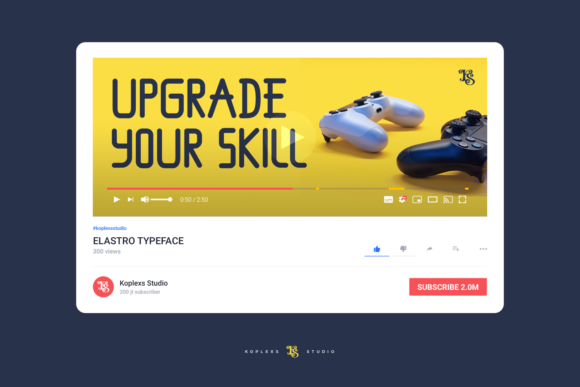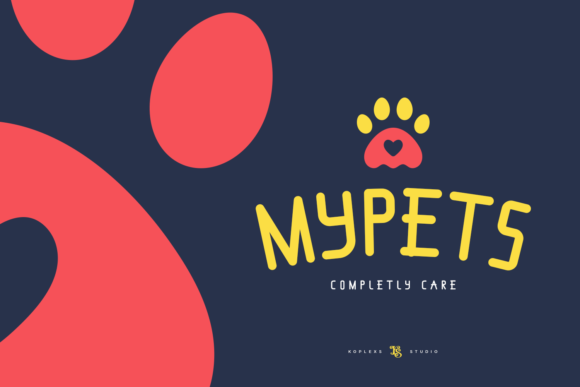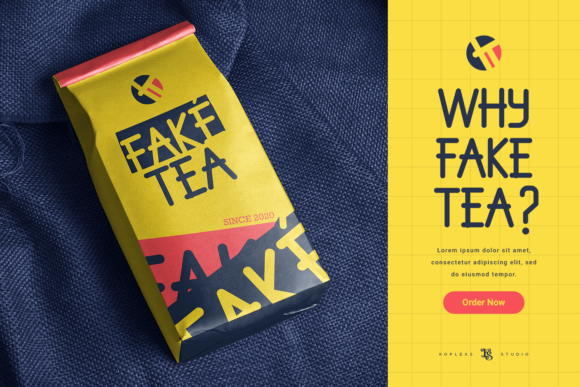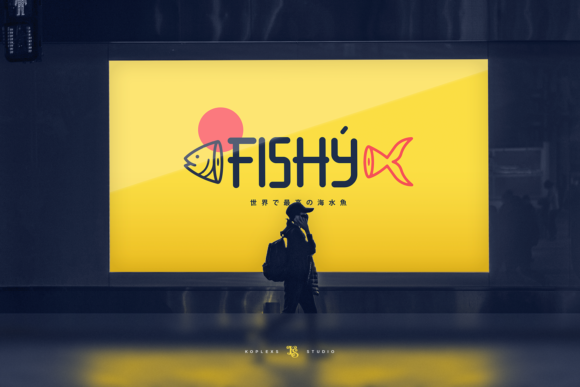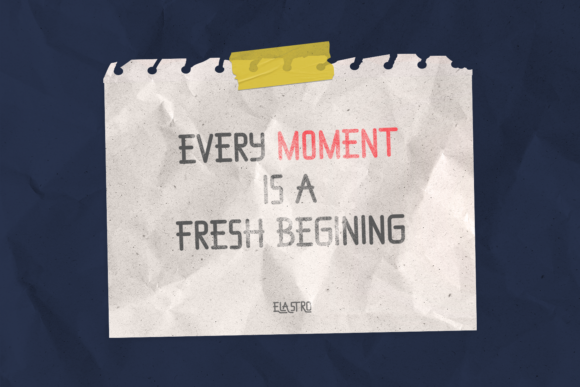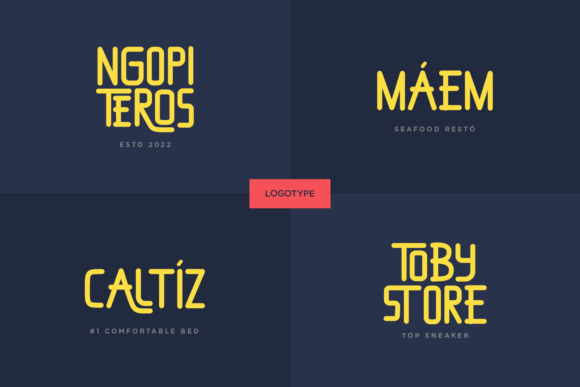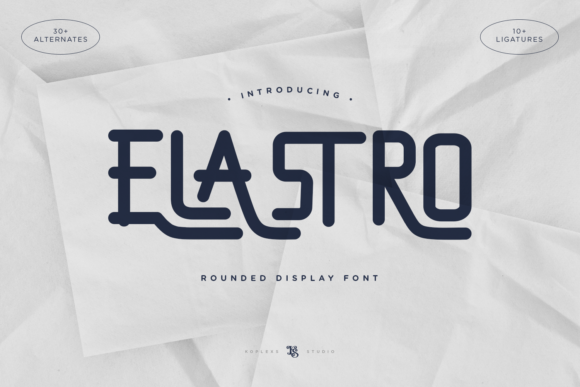
Introducing Elastro Font: The Ultimate Vintage Display Font for Designers and Crafters
Are you a designer, crafter, or DIY enthusiast looking for a font that adds a touch of vintage charm to your projects? Look no further than Elastro Font! This cool and stylish display font is perfect for a wide range of applications, from digital designing and presentations to crafting and greeting card making.
What Makes Elastro Font So Special?
Elastro Font is a standout in the world of typography, thanks to its unique blend of vintage flair and modern functionality. Here are just a few reasons why designers and crafters love working with Elastro:
- Vintage Style: Elastro Font boasts a distinctive vintage aesthetic that’s sure to add a touch of nostalgia to your projects. Its classic lines and elegant curves make it perfect for creating eye-catching headlines, titles, and graphics.
- PUA Encoding: Elastro Font is PUA (Private Use Area) encoded, which means you can access all glyphs and swashes with ease. This feature makes it simple to customize your text and add unique flourishes to your designs.
- Versatility: Whether you’re working on a digital project, such as a social media graphic or website header, or a physical craft, like a handmade card or scrapbook page, Elastro Font is the perfect choice.
Use Cases for Elastro Font
Elastro Font is an incredibly versatile typeface that can be used in a wide range of applications. Here are some ideas to get you started:
- Digital Designing: Use Elastro Font to create stunning social media graphics, website headers, and email newsletters that are sure to grab attention.
- Crafting: Add a touch of vintage charm to your handmade crafts, such as greeting cards, scrapbook pages, and DIY decorations.
- Presentations: Make your presentations stand out with Elastro Font’s elegant and sophisticated style.
- Greeting Cards: Create beautiful, one-of-a-kind greeting cards for special occasions, such as birthdays, weddings, and holidays.
Tips for Getting the Most Out of Elastro Font
To help you get started with Elastro Font, here are a few tips and tricks:
- Experiment with Swashes: Take advantage of Elastro Font’s PUA encoding to add unique swashes and flourishes to your text.
- Mix and Match: Combine Elastro Font with other typefaces to create visually interesting and dynamic designs.
- Play with Color: Elastro Font looks great in a range of colors, from bold and bright to soft and pastel.
Elastro Font is a must-have for designers and crafters looking to add a touch of vintage charm to their projects. With its unique blend of classic style and modern functionality, this versatile typeface is perfect for a wide range of applications. Whether you’re working on a digital project or a physical craft, Elastro Font is sure to become a favorite in your collection.